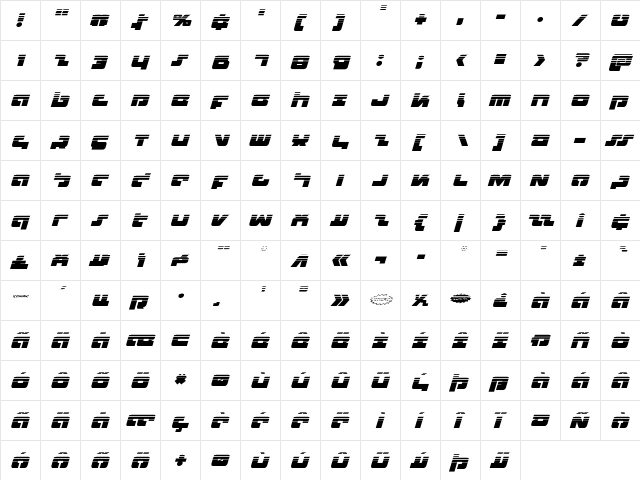
Boomstick Halftone Italic Italic Font Preview
Boomstick Halftone Italic Italic
Design Context for Boomstick Halftone Italic Typeface
Boomstick Halftone Italic is a composed and adaptable typeface that performs quietly and consistently across a wide range of design contexts. Its italic angle brings a sense of urgency and motion to the letterforms.
Pro Tip: Try Boomstick Halftone Italic for annotation and caption copy alongside an upright companion — the contrast in angle creates a dynamic but ordered typographic system.